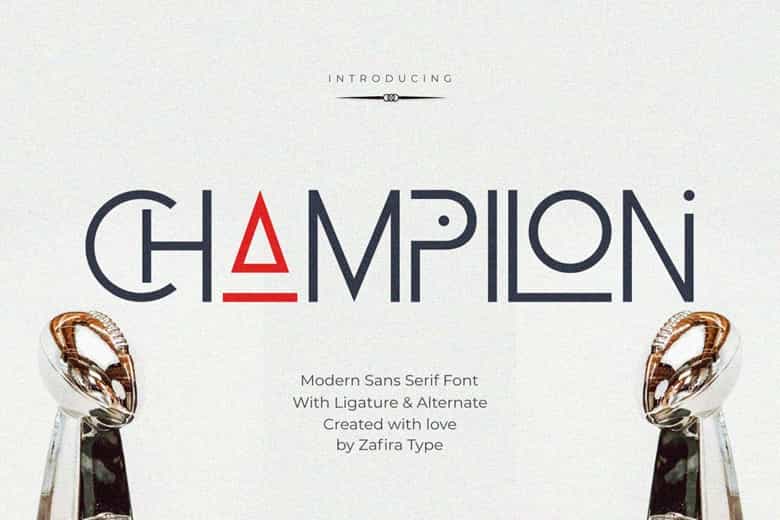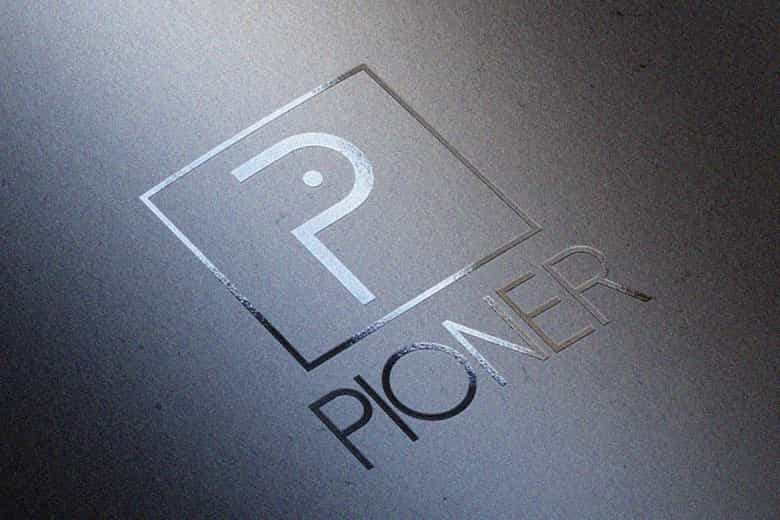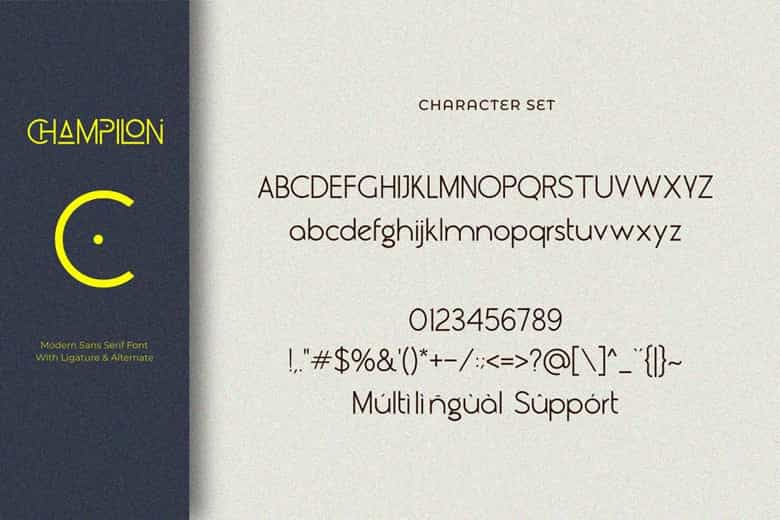
Discover Champilon Font, part of the Sans Serif collection—a versatile and unique font perfect for adding a personal touch to your projects. Download it for free and enjoy crafting designs with style, from invitations to social media posts. This font is available exclusively for personal use, giving you the freedom to create without limits. Unlock your creativity with Champilon Font today!
Champilon is a sans serif typeface exhibiting modern and minimalistic characteristics of the humanistic sans serif font. Featuring smooth ligatures and Alternate, it fits into the aesthetic of any design work which is being conducted today. This free font type is ideal for branding, business papers and print-outs since it provides a polished and easy-to-read appearance to the said documents.